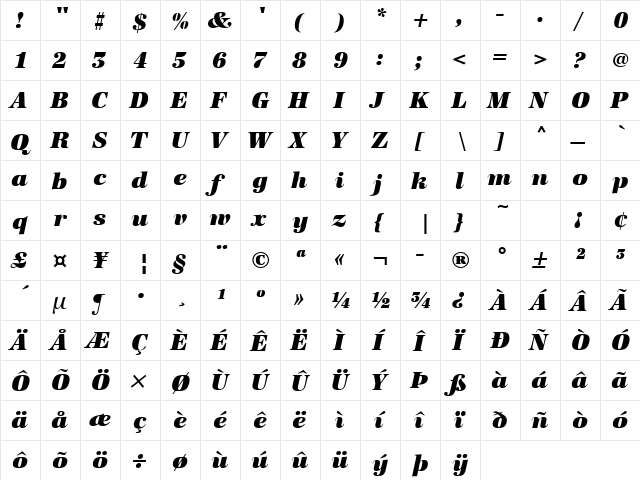
Becker Antiqua Alt Italic
Design Context for Becker Antiqua Alt Typeface
Becker Antiqua Alt is a composed and adaptable typeface that performs quietly and consistently across a wide range of design contexts. Its italic angle brings a sense of urgency and motion to the letterforms.
Pro Tip: Try Becker Antiqua Alt for annotation and caption copy alongside an upright companion — the contrast in angle creates a dynamic but ordered typographic system.